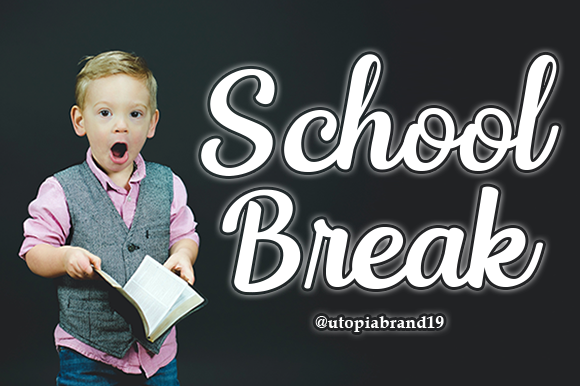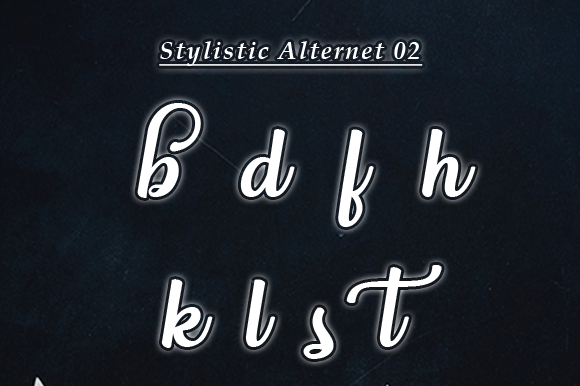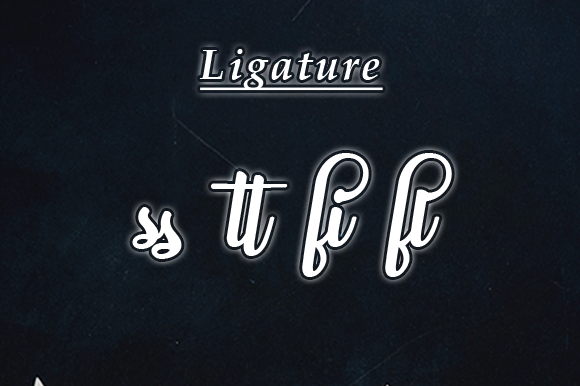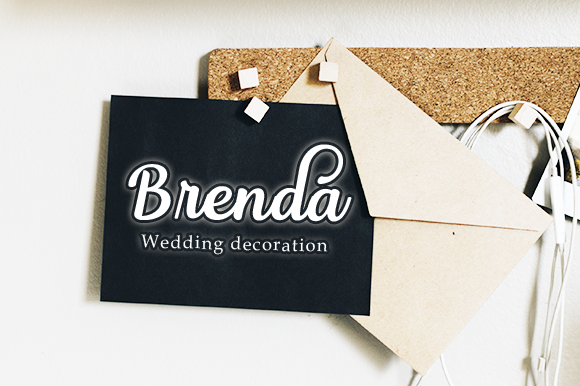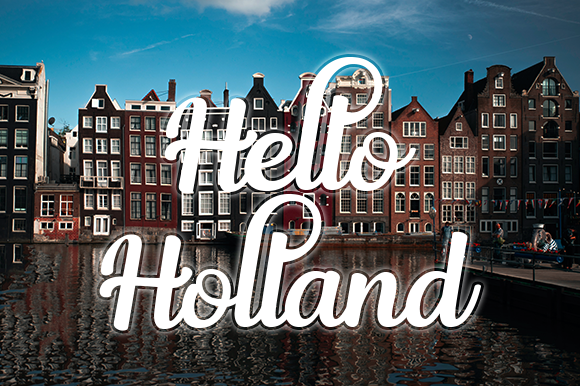
About School Break Font
School Break is a stylish and elegant handwritten font. It looks beautiful on wedding invitations, thank you cards, quotes, greeting cards, logos, business cards and every other design which needs a customized touch.